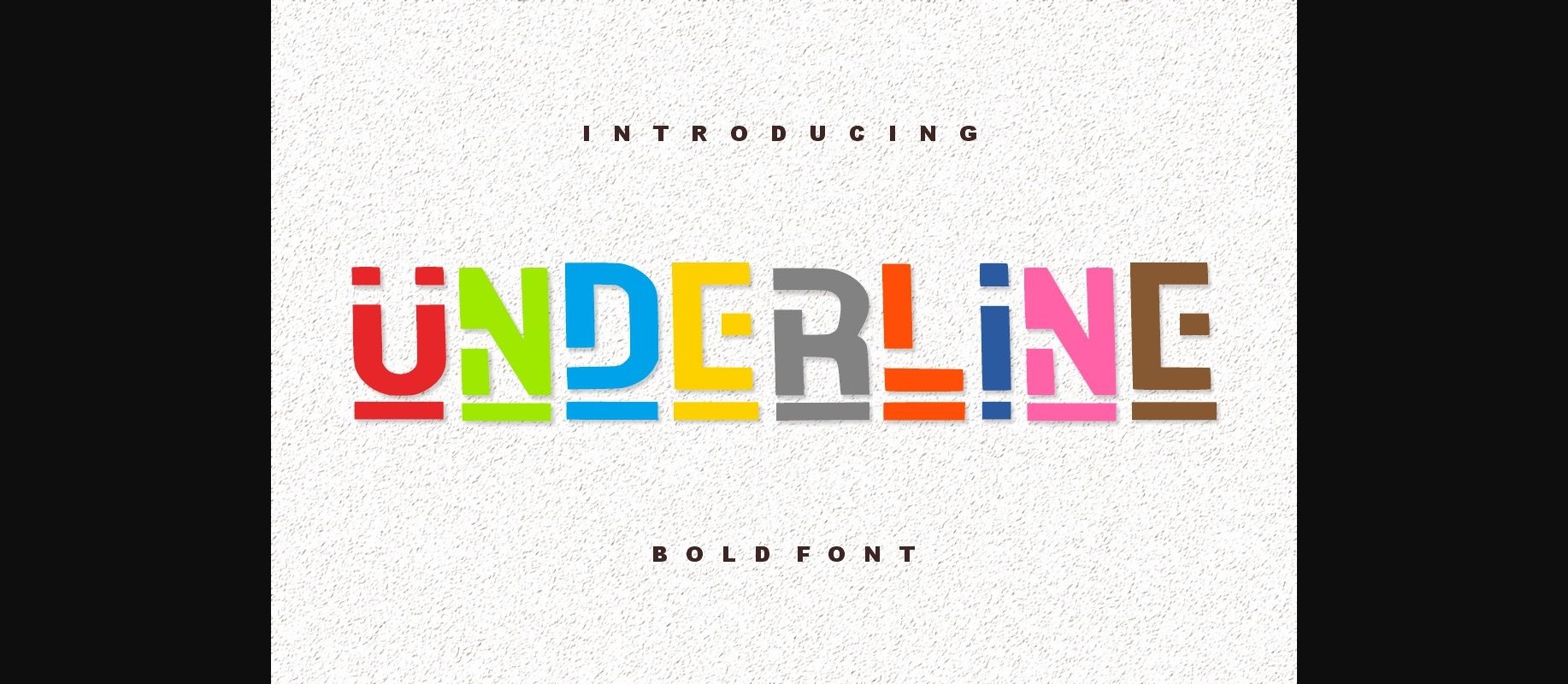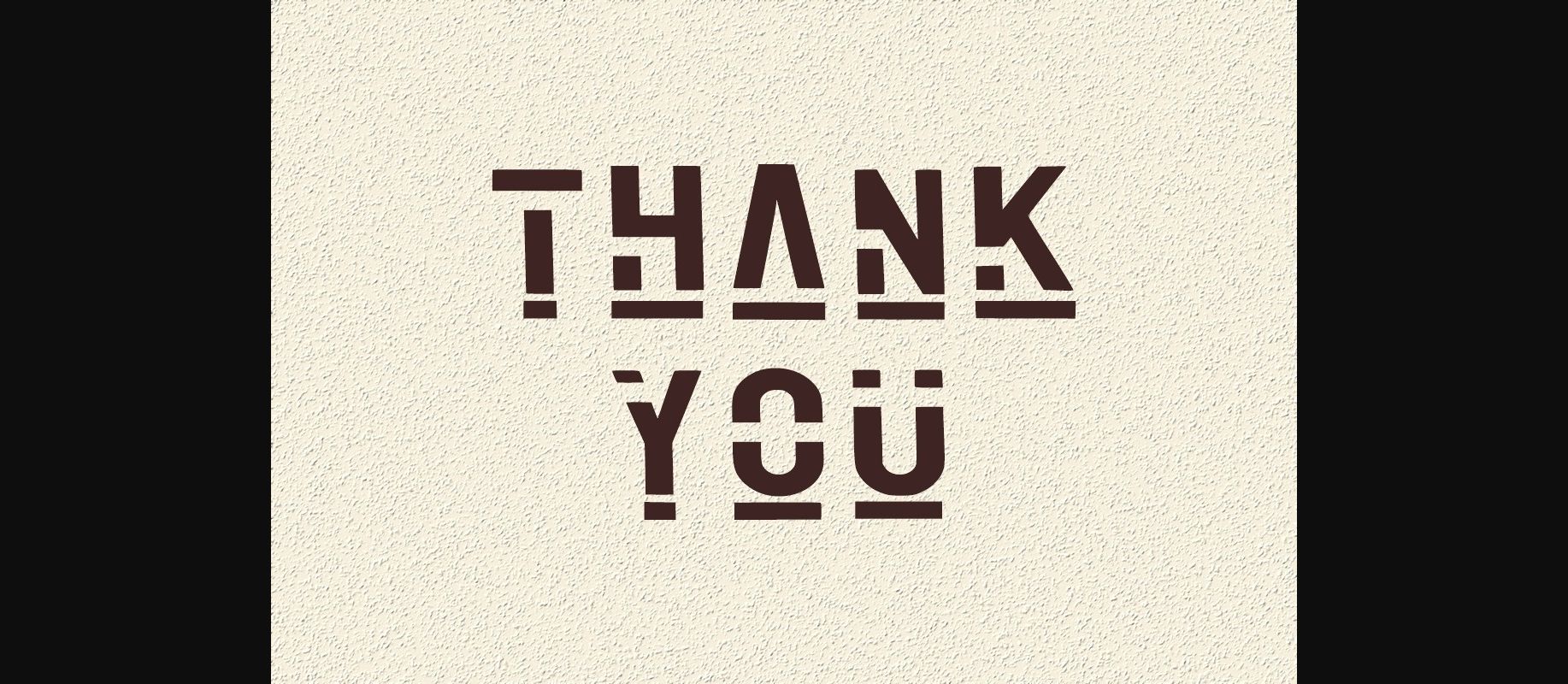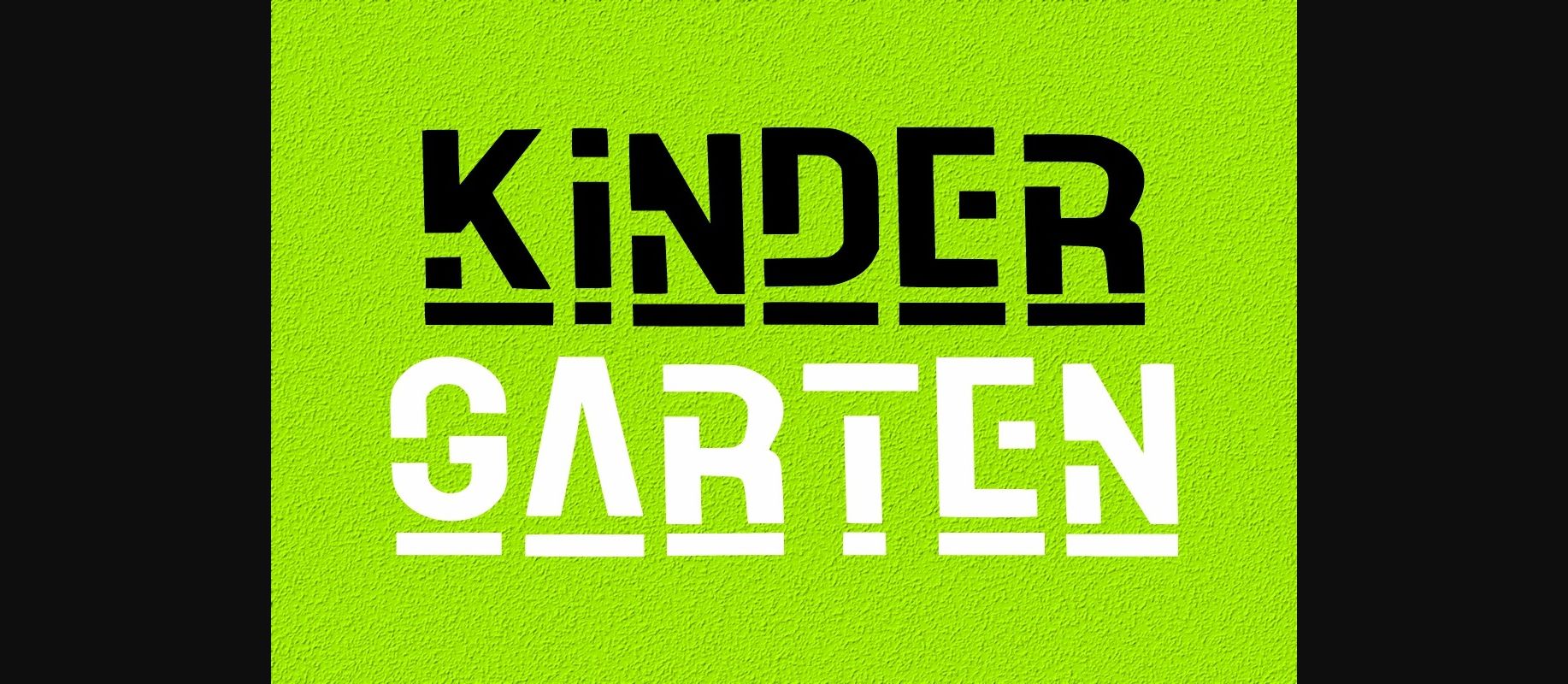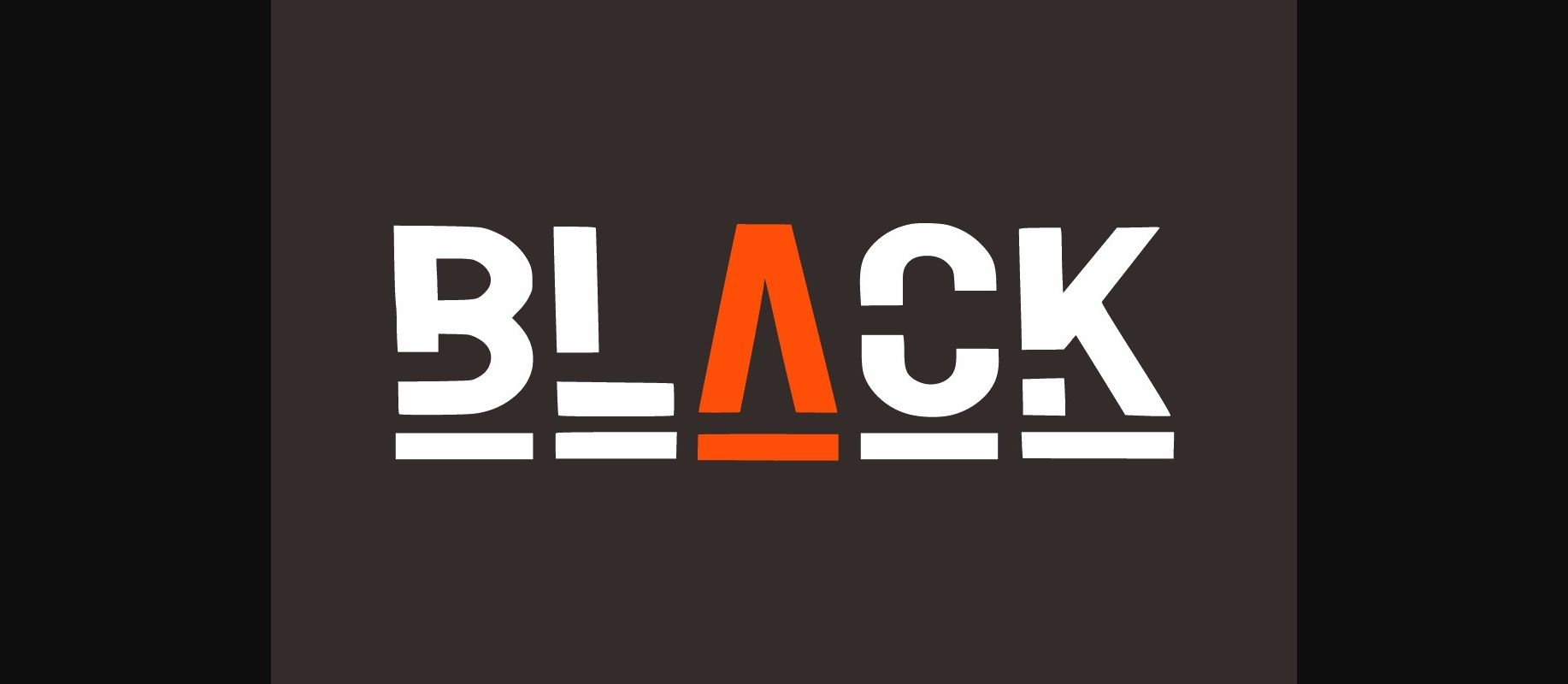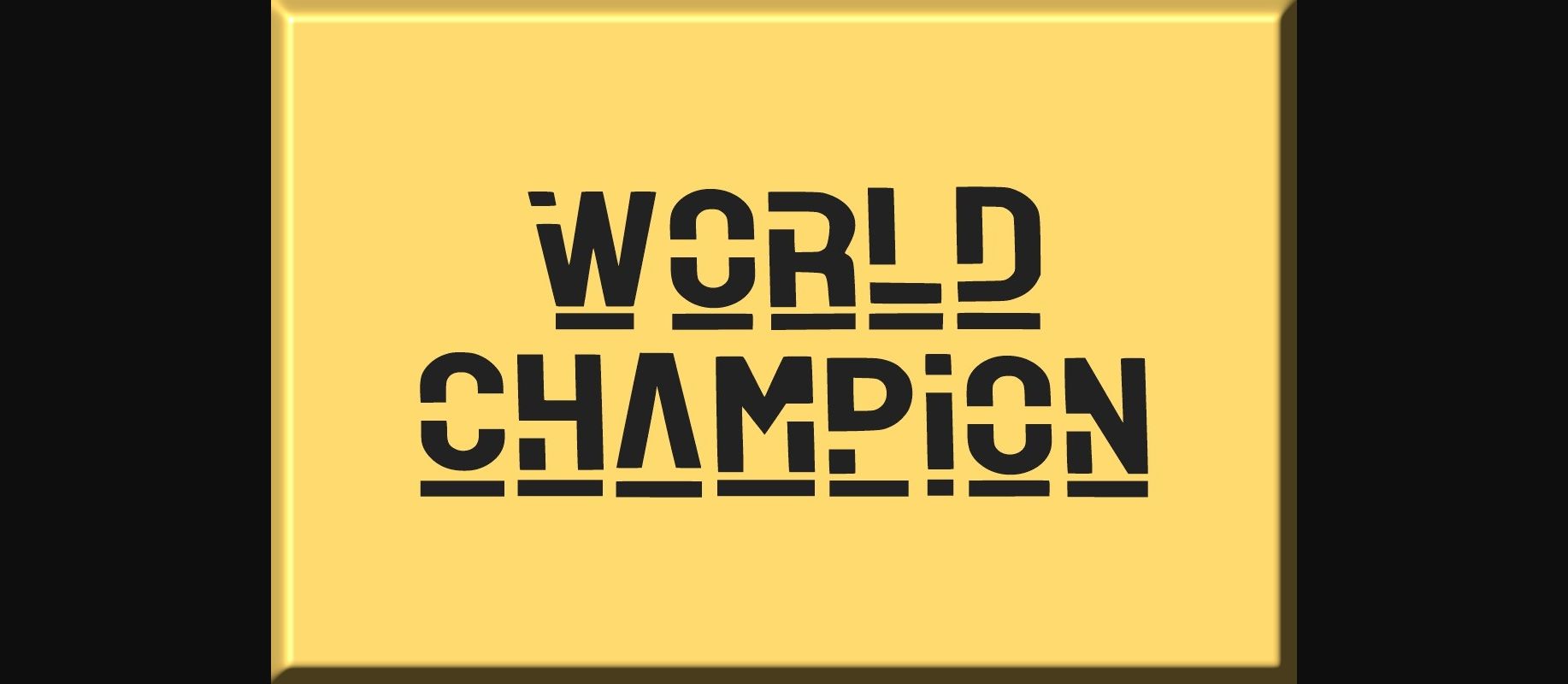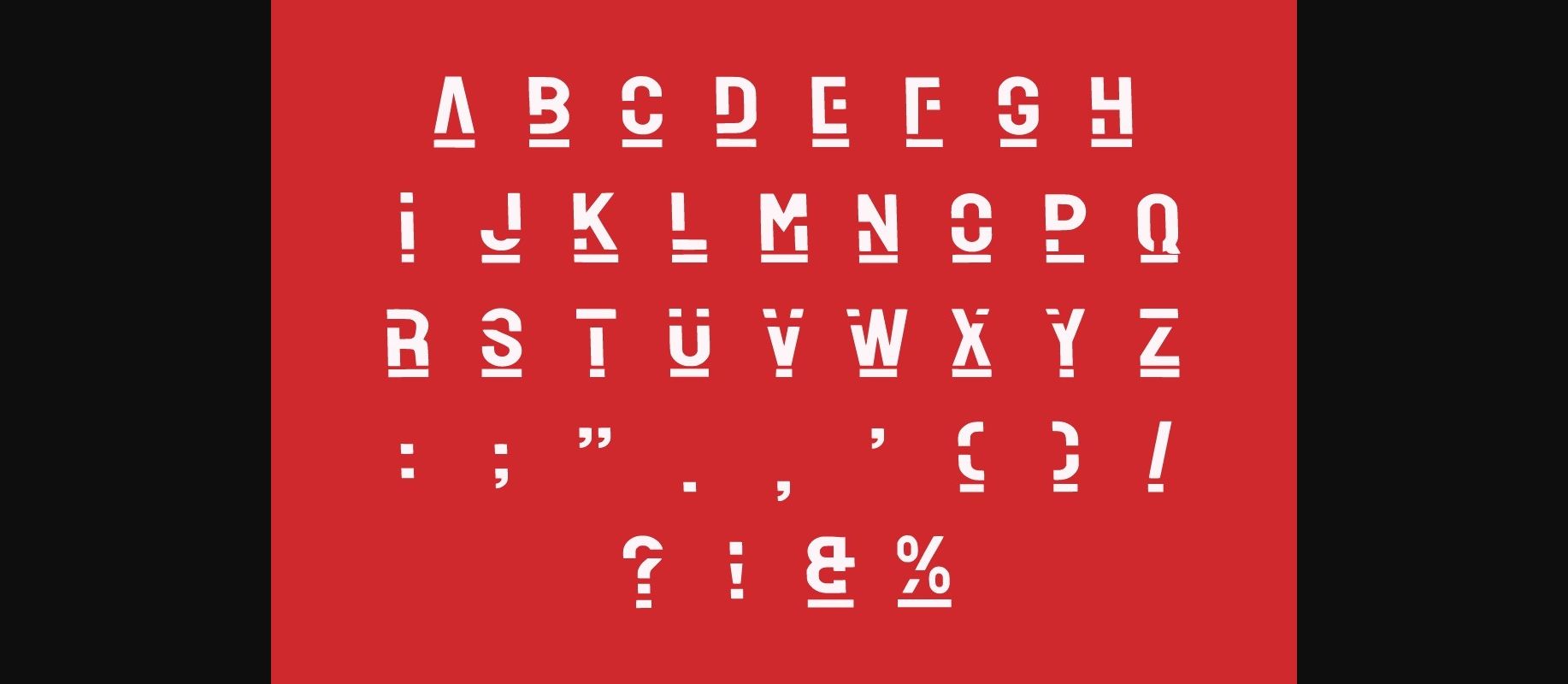
About Underline Font
Underline is a bold, fancy, and friendly font. Its informal style and casual vibe will make this font a go-to choice for each of your creations that require a relaxed touch.
It is suitable for any product packaging, invitation, quote, t-shirt, label, poster, or logo that you wish to develop!